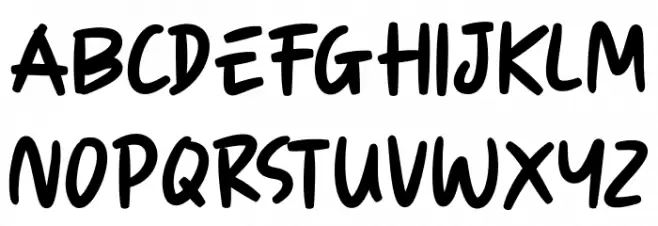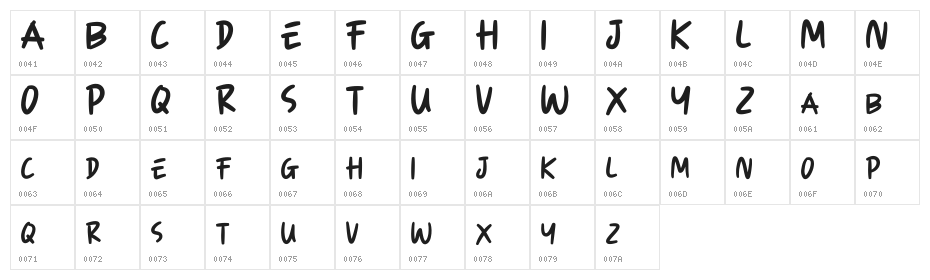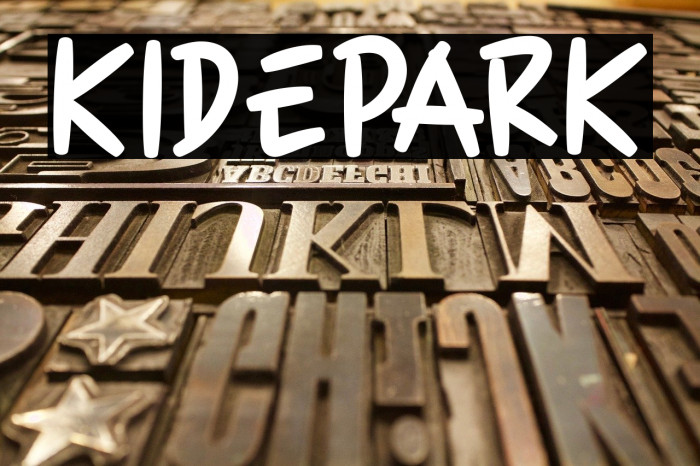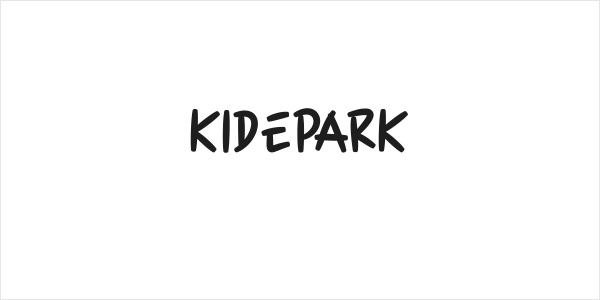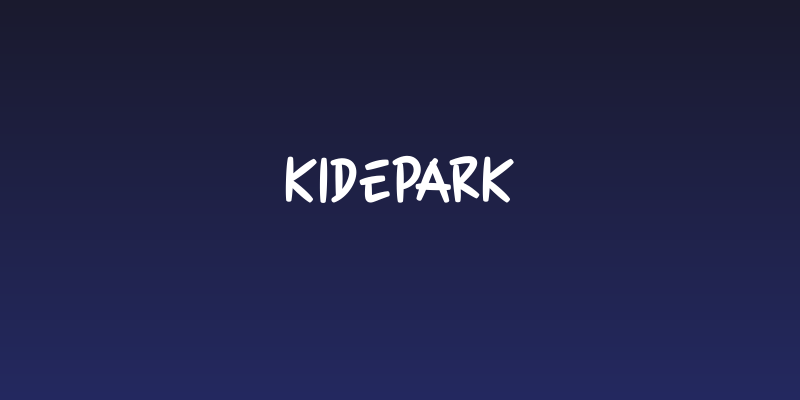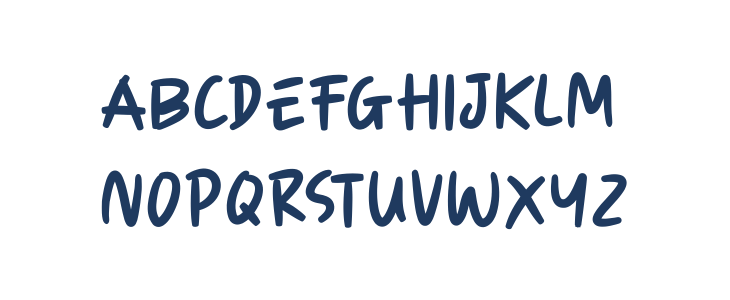
KIDEPARK Font
KIDEPARK Description
This font features a playful and casual handwritten style, characterized by its bold and rounded letterforms. The strokes are consistent in thickness, giving it a uniform appearance. Each character has a slightly tilted orientation, adding to its informal and approachable feel. The uppercase and lowercase letters maintain a cohesive look, with smooth curves and a friendly demeanor. The numerals and special characters are designed to match the overall style, ensuring versatility across different uses. This font is ideal for projects that require a touch of personality and warmth.
A playful, bold handwritten font with rounded letterforms and a casual style from Uncategorized fonts.
- Font: KIDEPARK
- Proposed Projects: Perfect for children's books, playful branding, greeting cards, and informal invitations.
- Overall Style: Casual, Playful
- Use Case: Headlines, Logos, Informal Text